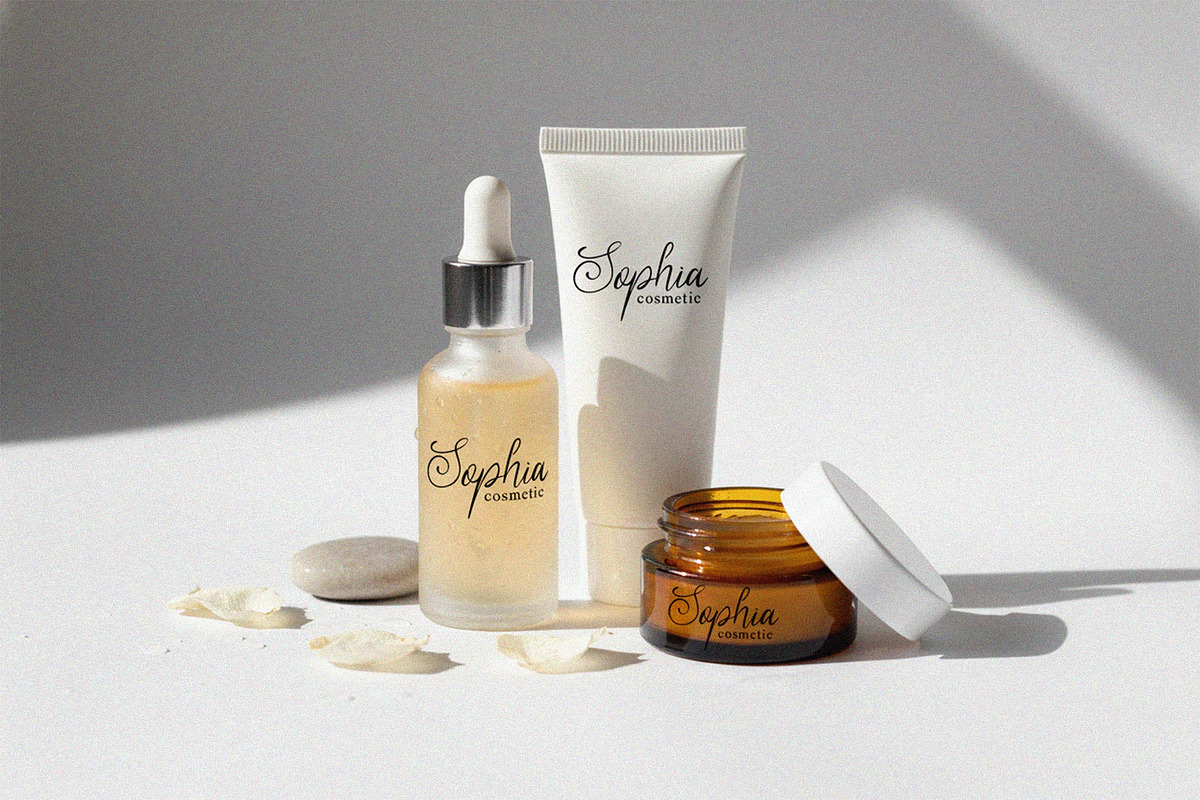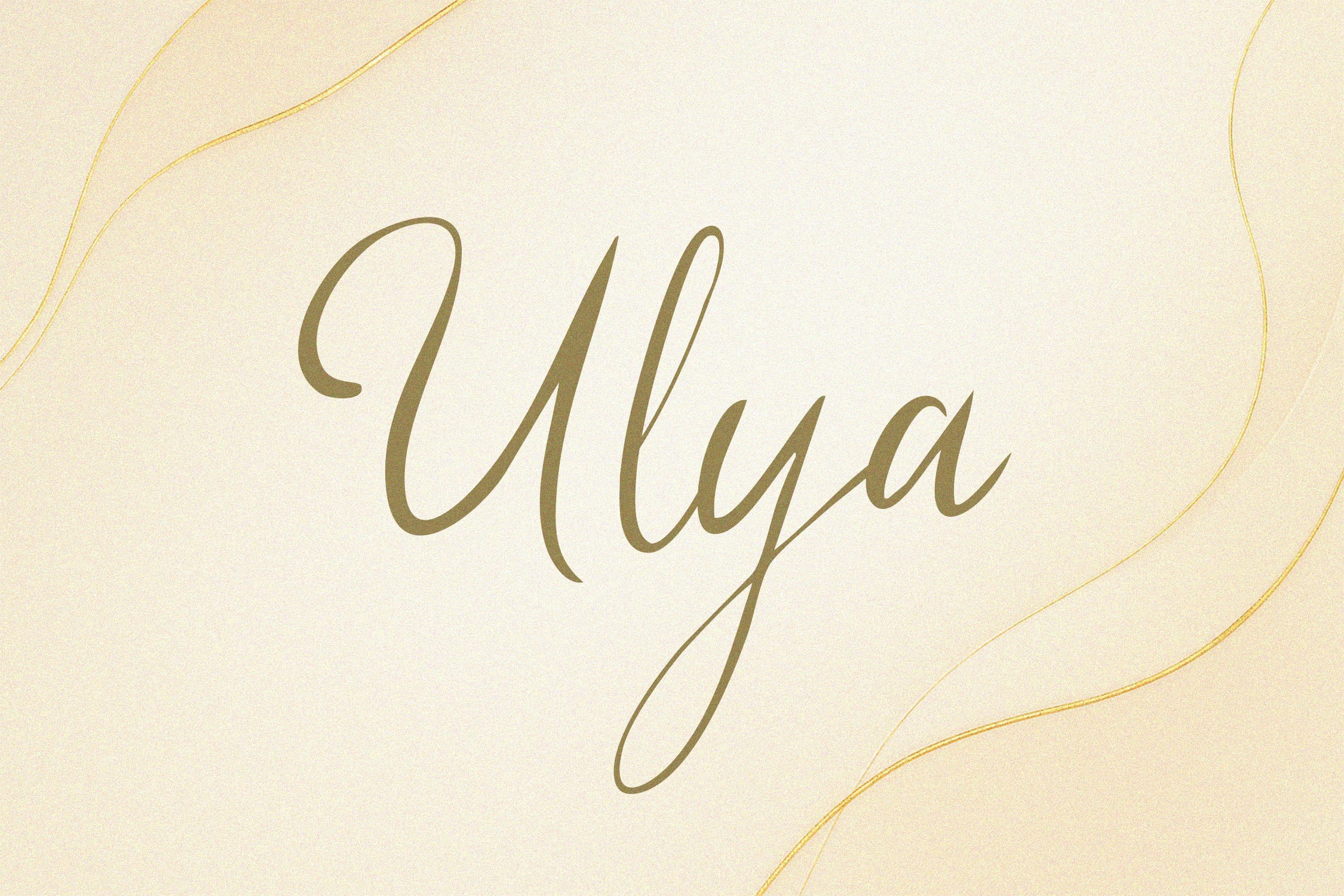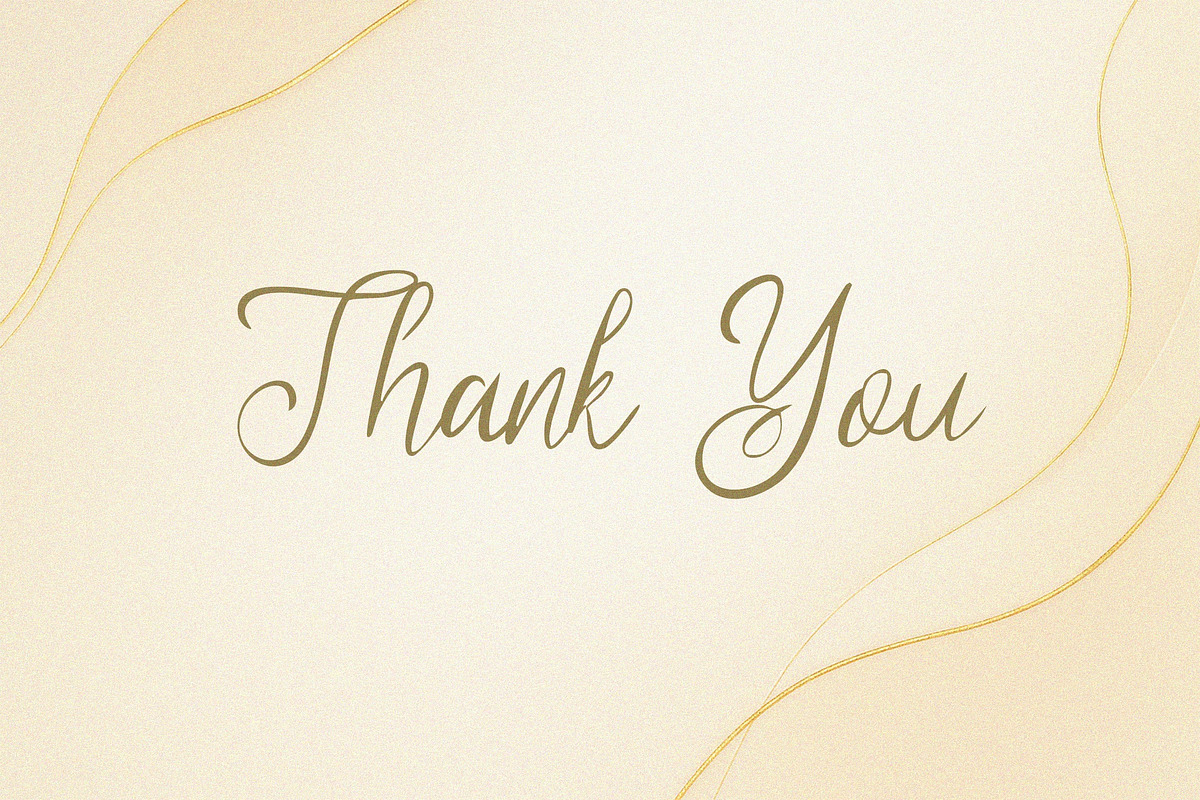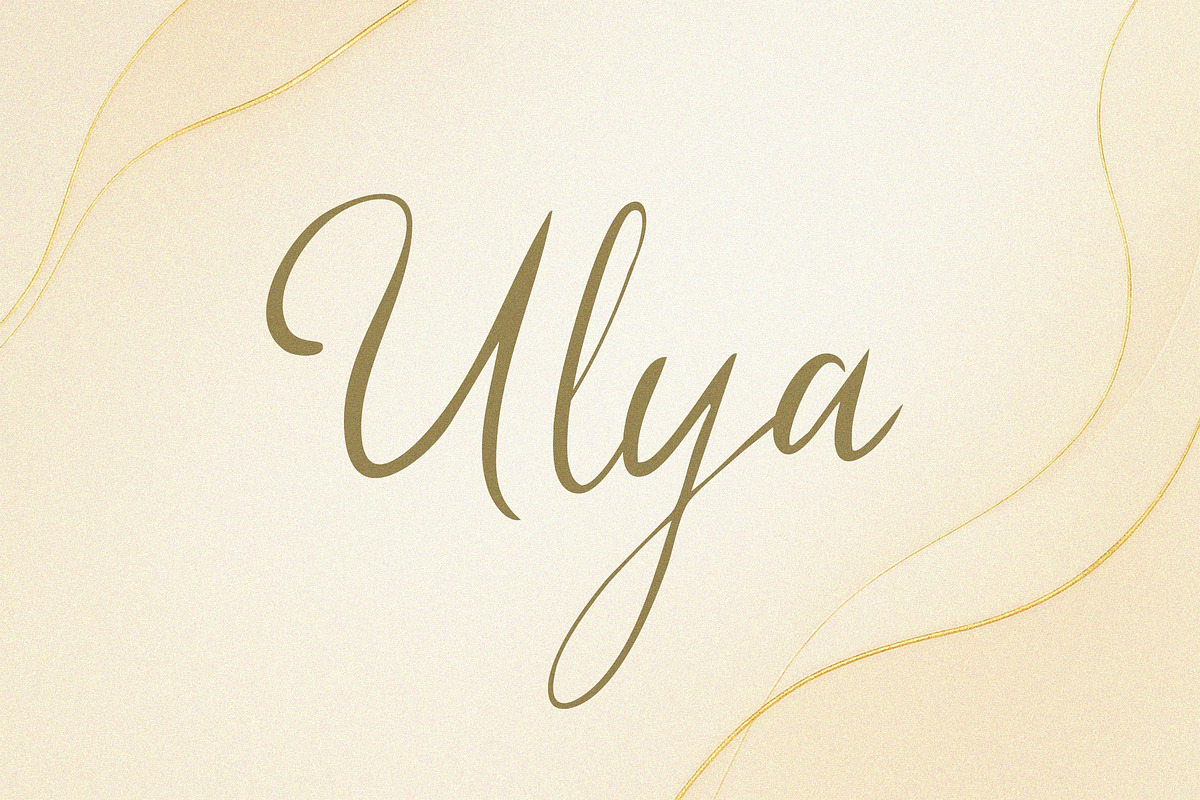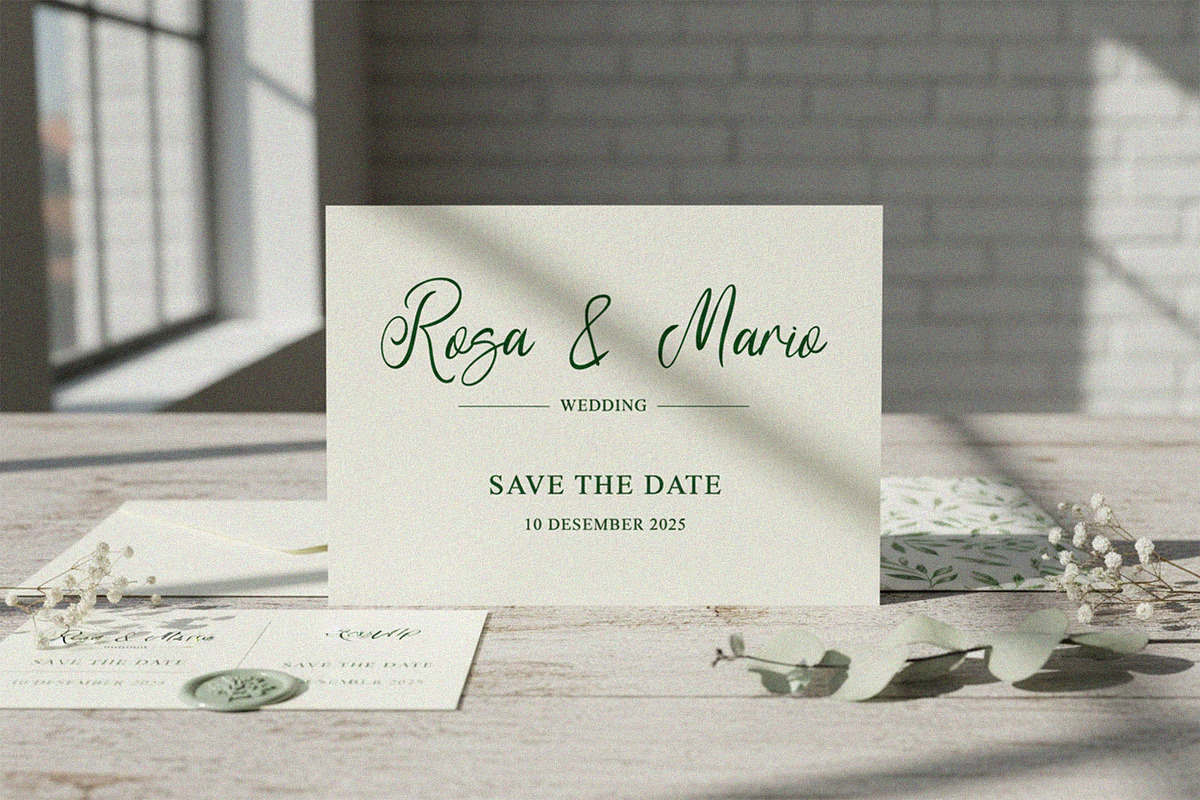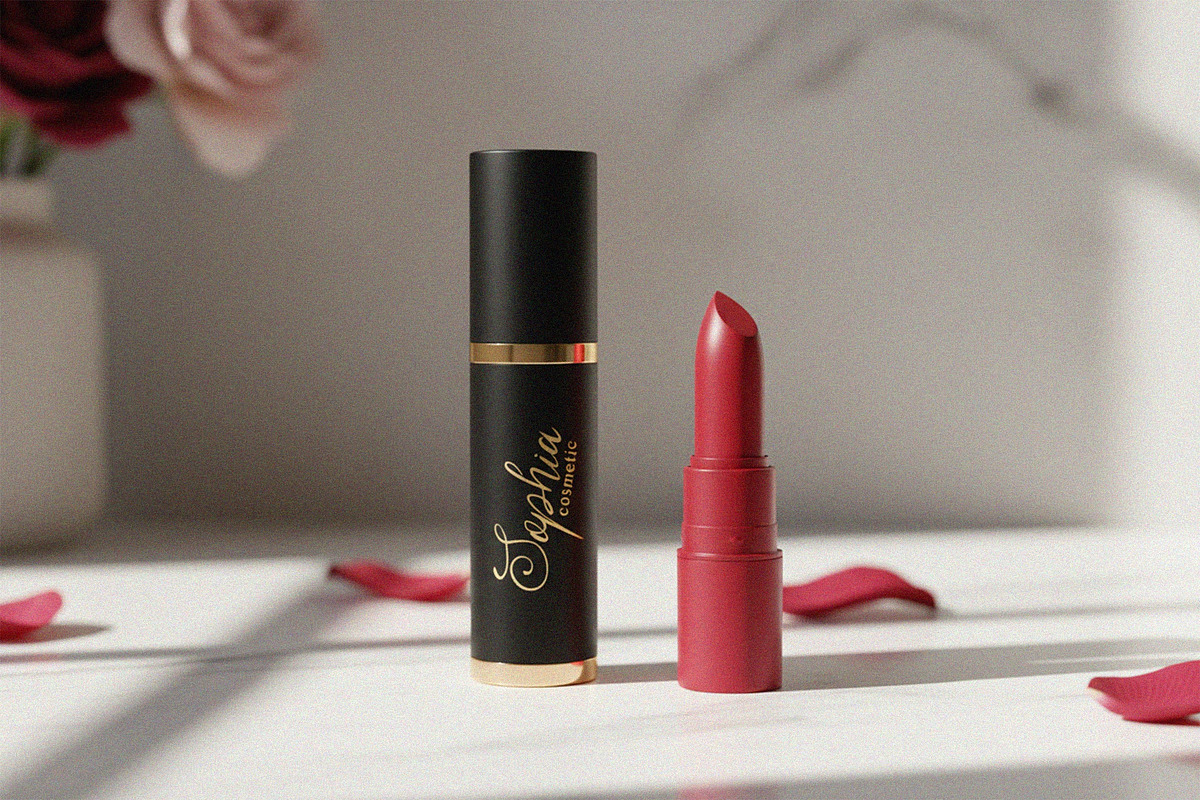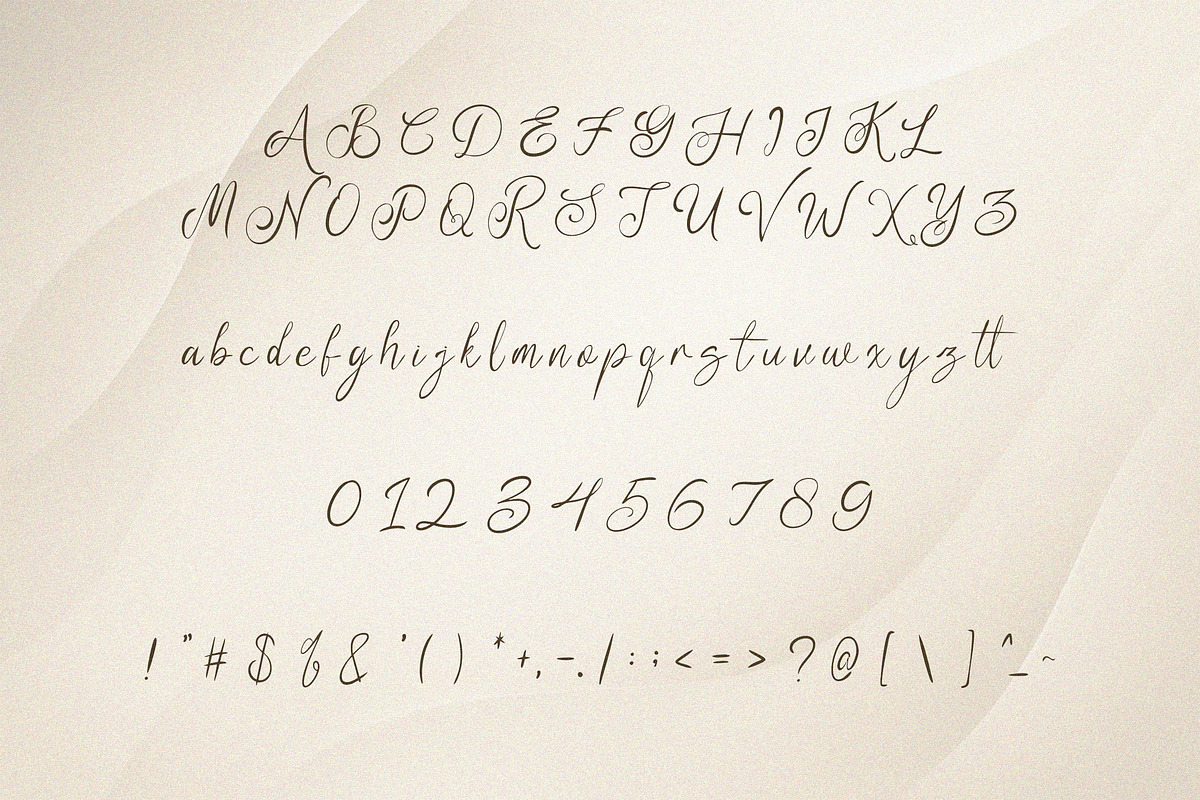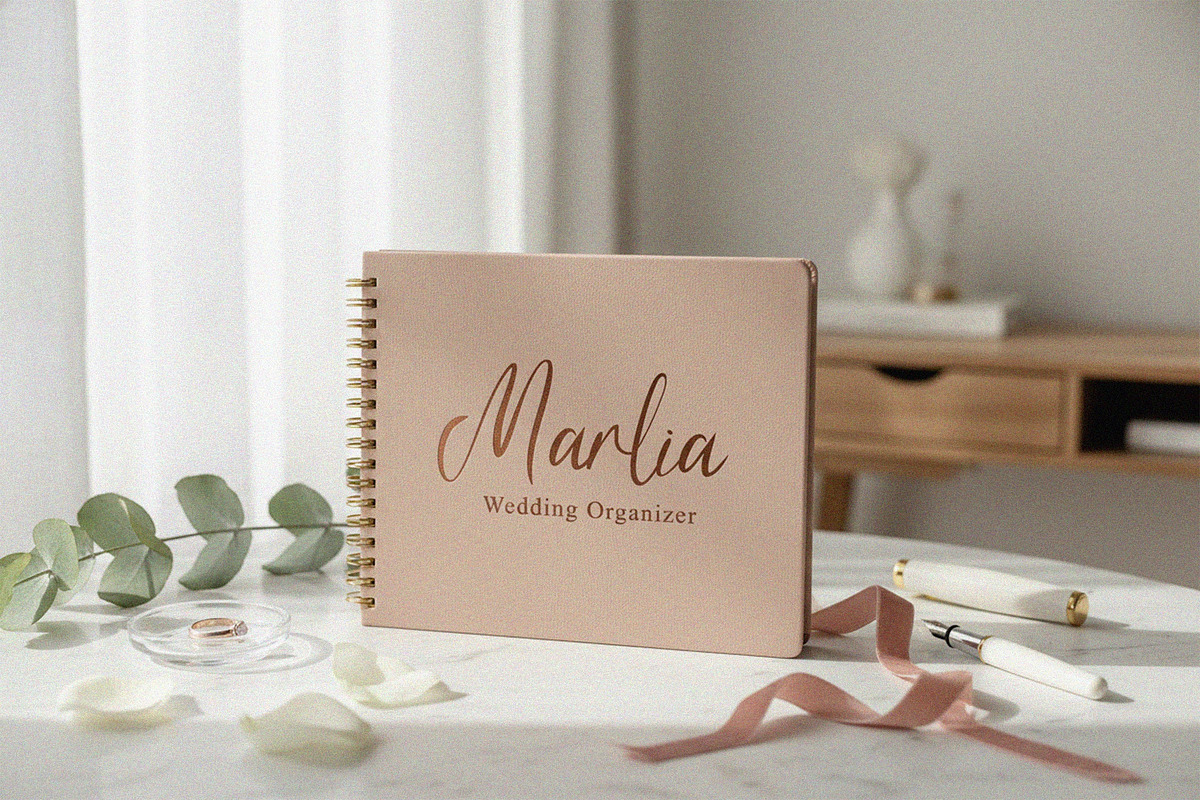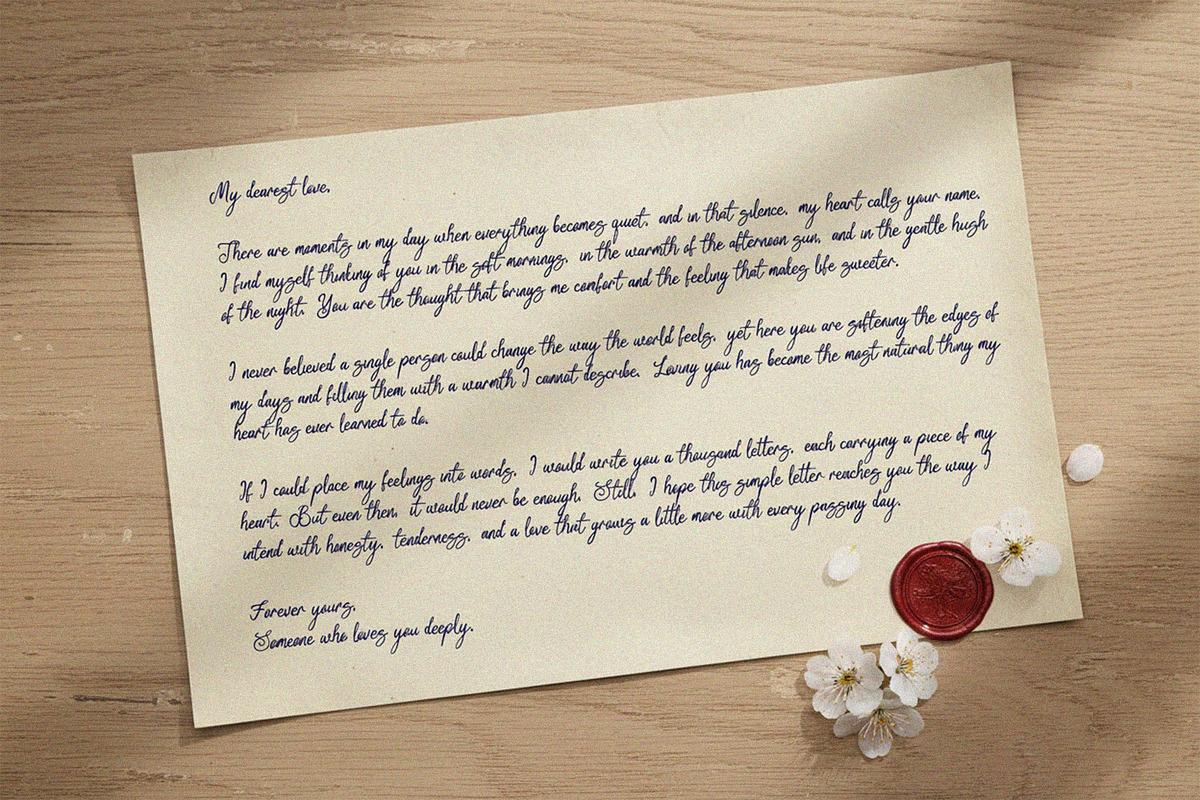
Ulya Elegant Script Font
Ulya Elegant Script Font is a refined and sophisticated script typeface designed to elevate your creative projects with graceful beauty. Its smooth curves, flowing strokes, and luxurious handwritten style make it perfect for wedding invitations, branding, product packaging, beauty and fashion designs, logos, and inspirational quotes. Ulya offers a timeless elegance that blends softness with high-end visual appeal, giving every layout a polished and romantic feel. The balanced letterforms ensure great readability while maintaining a delicate, stylish charm suitable for both digital and print designs.